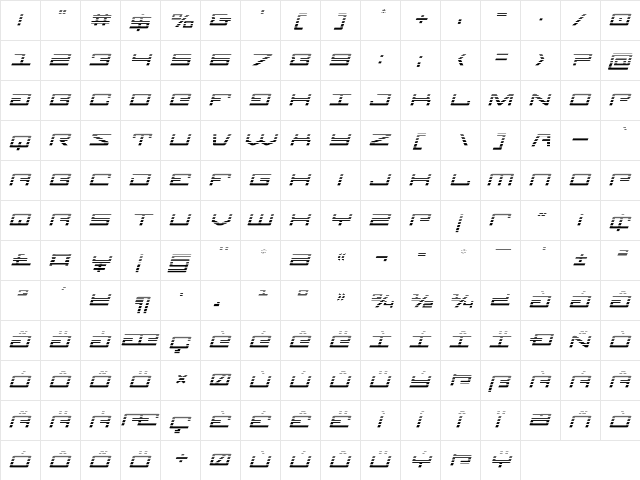
Legion Gradient Italic Italic Font Preview
Legion Gradient Italic Italic
Legion Gradient Italic Italic Font Details
Design Context for Legion Gradient Italic Typeface
Legion Gradient Italic is a composed and adaptable typeface that performs quietly and consistently across a wide range of design contexts. The dynamic lean of this cut emphasises speed and emphasis in any layout.